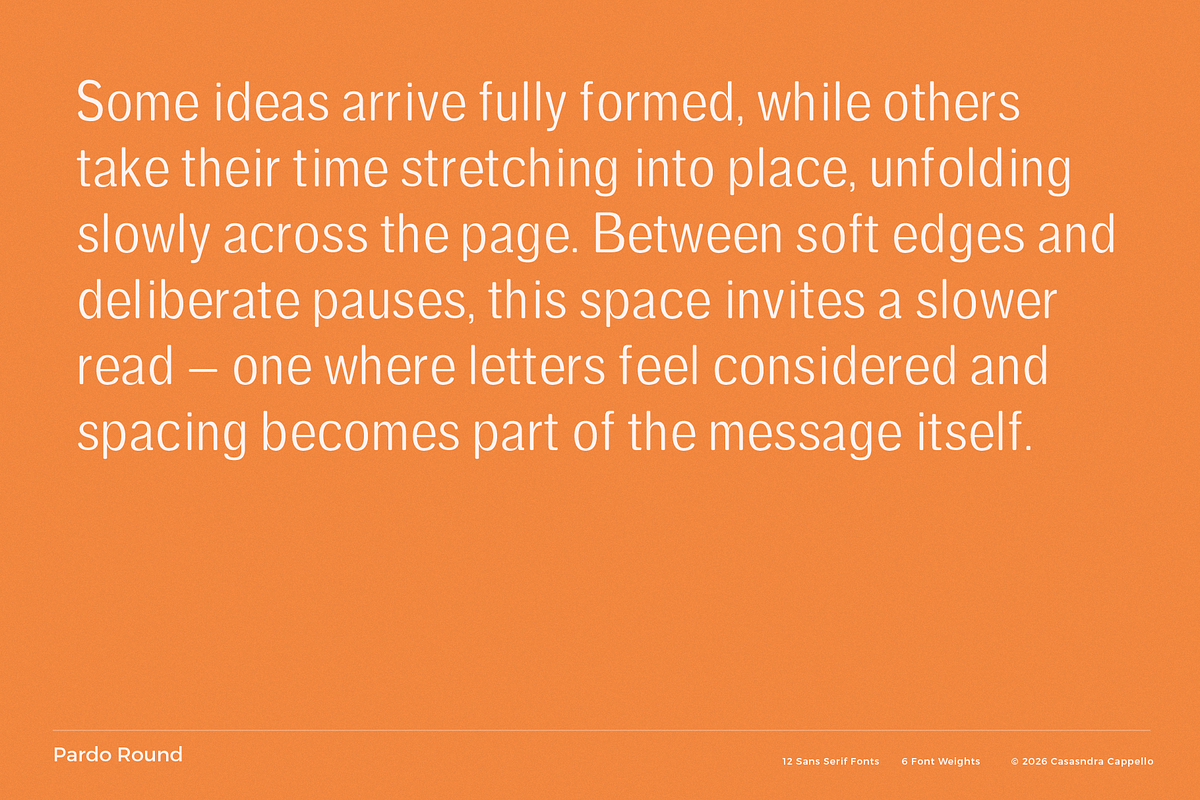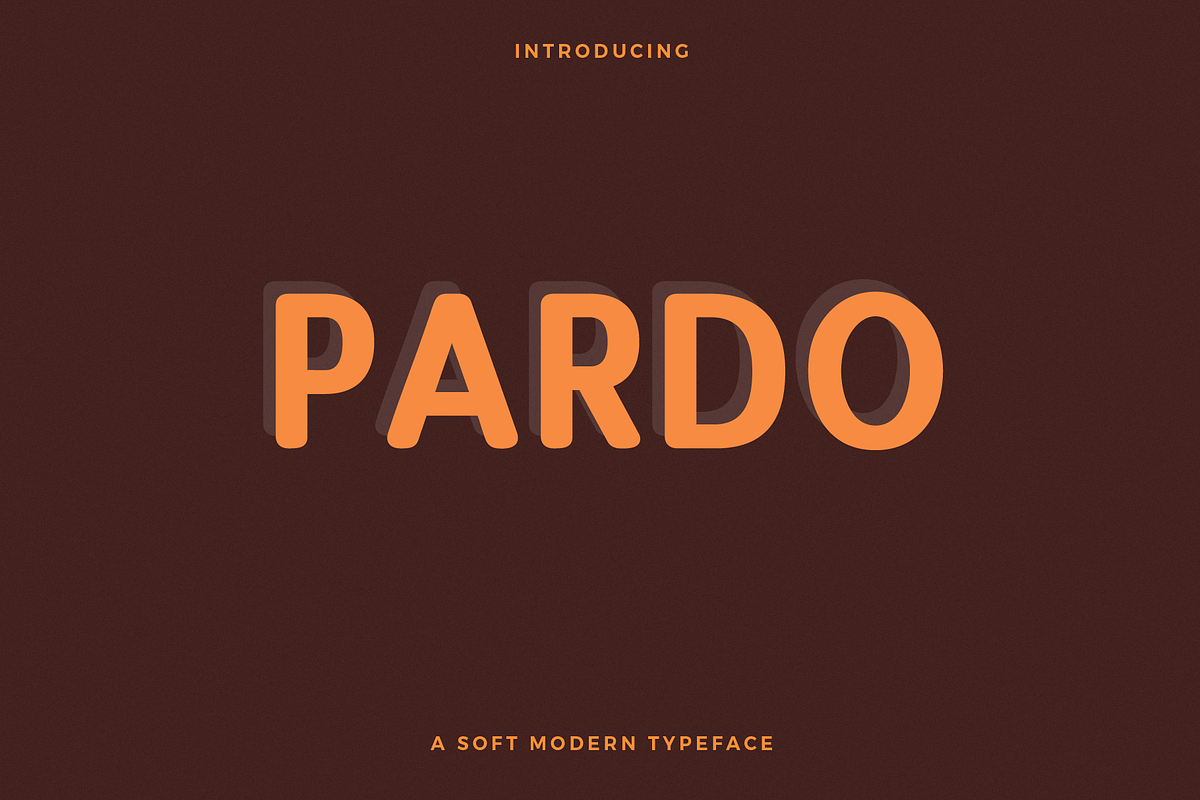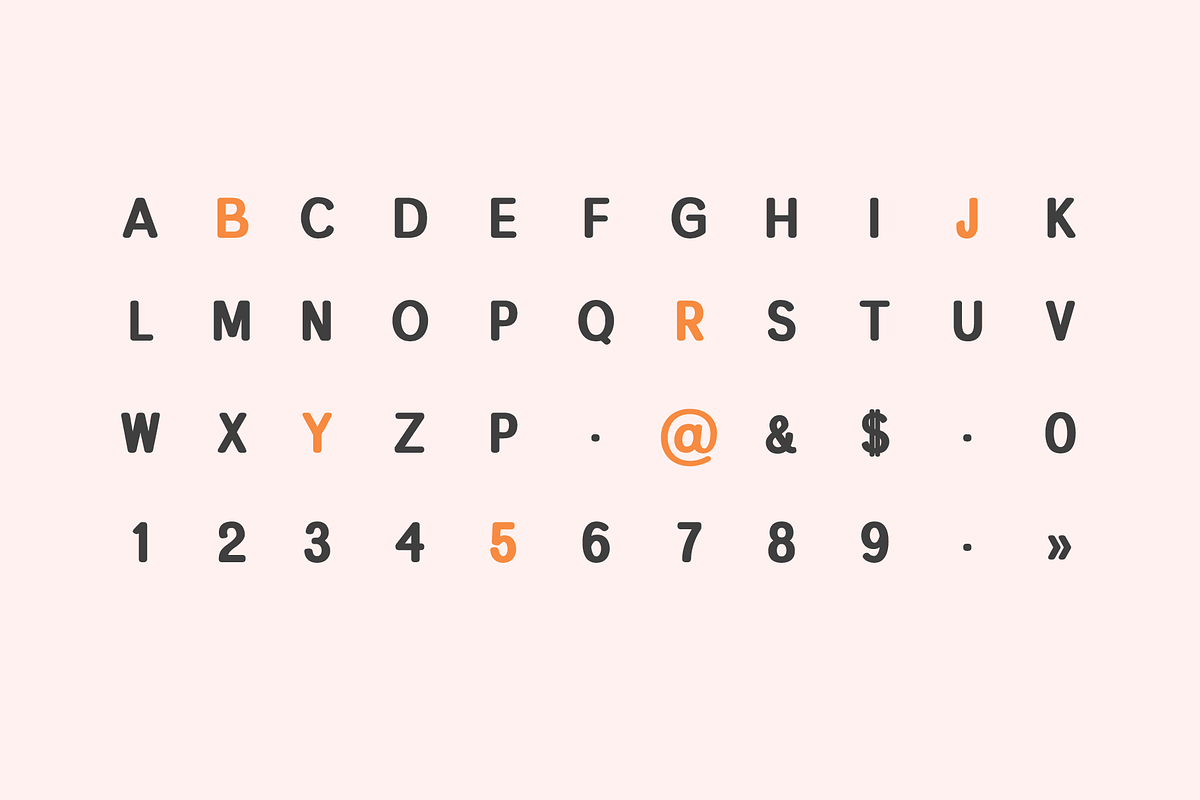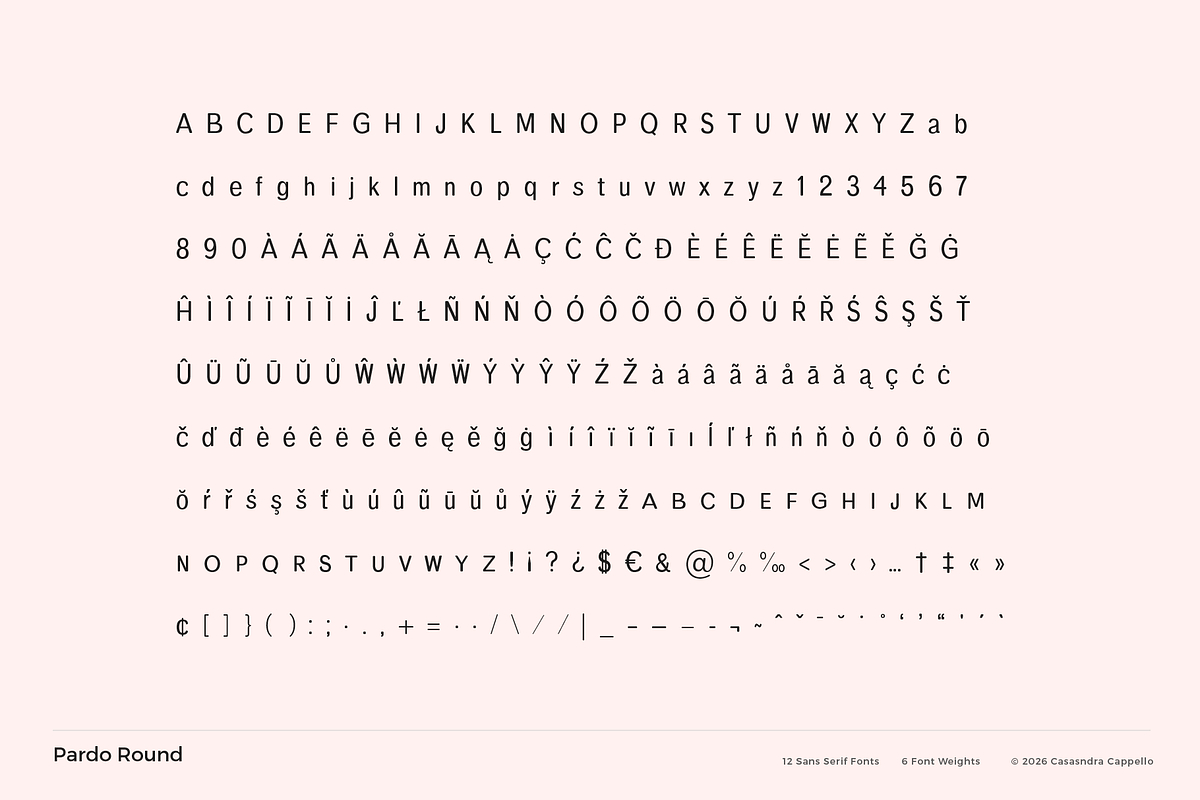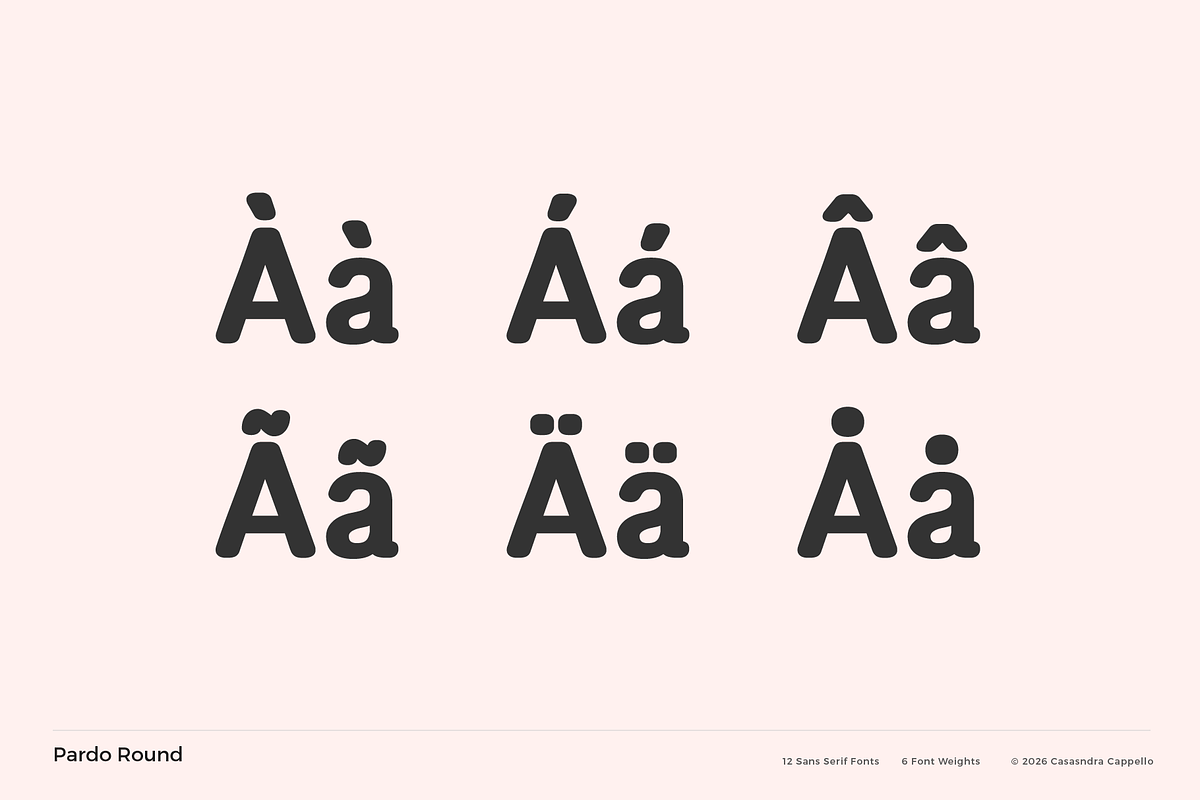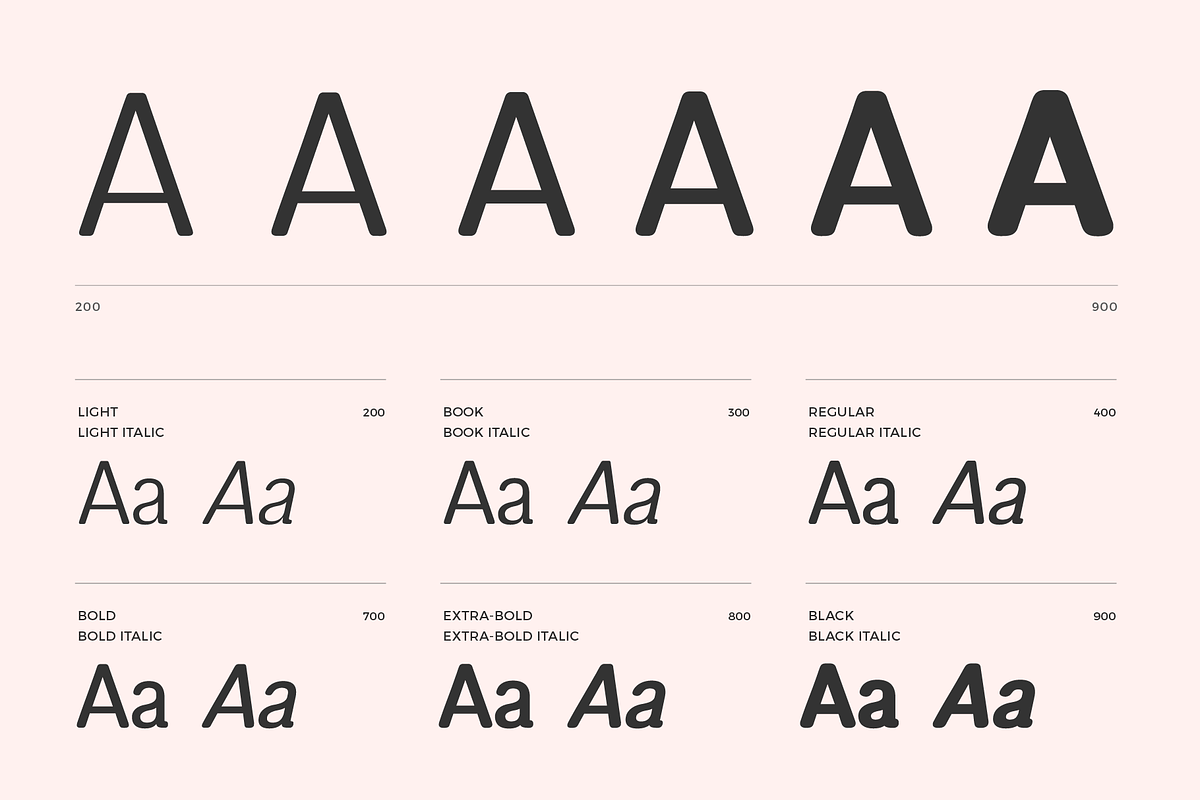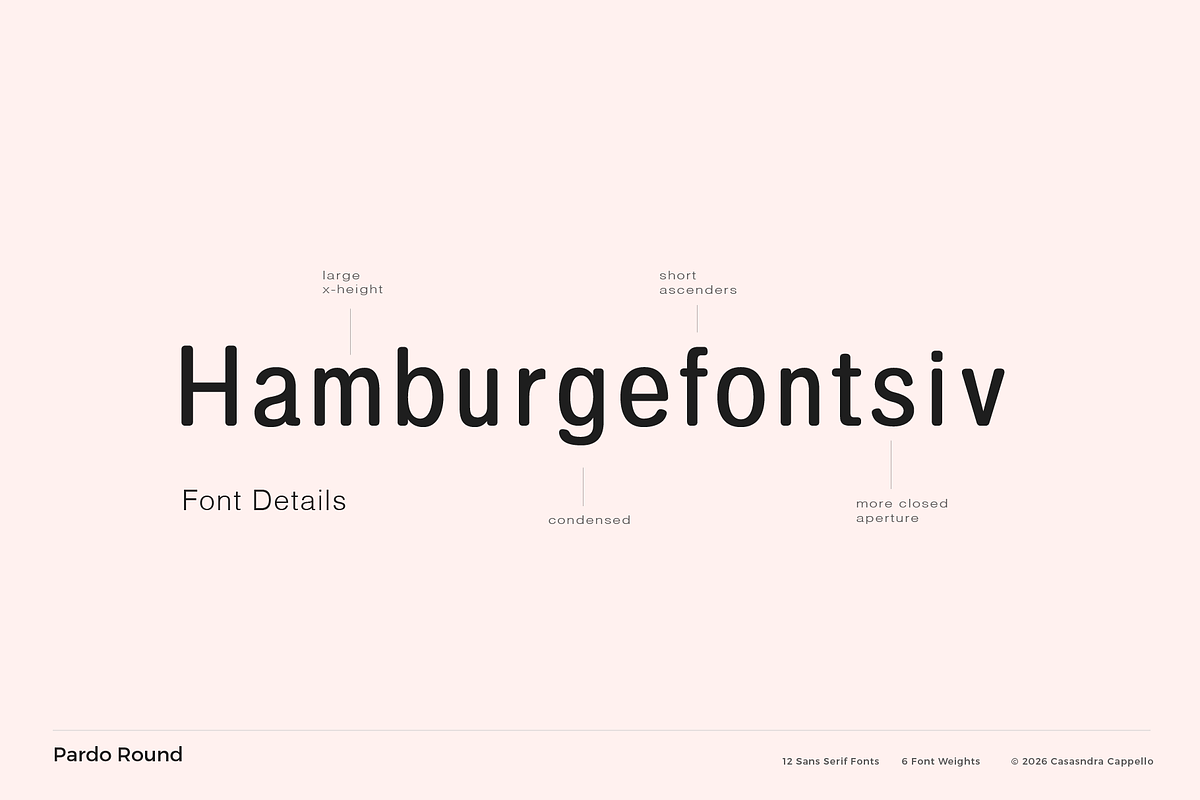
Pardo Round - Modern Sans Serif
Pardo Round is a modern, slightly condensed sans serif typeface. It has a little bit of personality and can be used for both headers and body copy. This font family includes all Latin characters (including accents), numbers, special characters, and punctuation.